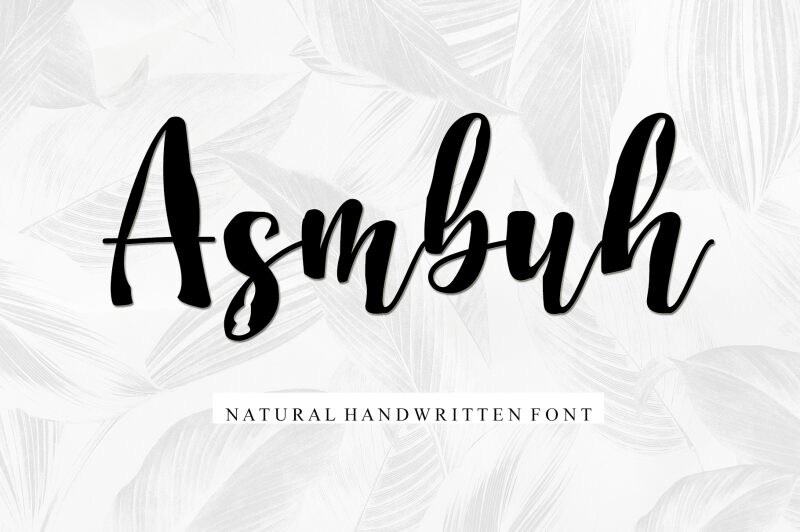
Asmbuh
Asmbuh, the captivating brush font designed by Letterafa Studio, effortlessly combines elegance and playfulness. With its semi-condensed width, this versatile typeface is perfect for a wide range of projects. Its expressive strokes and organic textures make it ideal for logo designs and branding materials, adding a touch of personality to any visual identity. Asmbuh also shines in editorial designs, giving headlines and titles a bold yet sophisticated look. From packaging to social media graphics, this font is tailored to elevate your creative projects with its unique charm and timeless appeal.